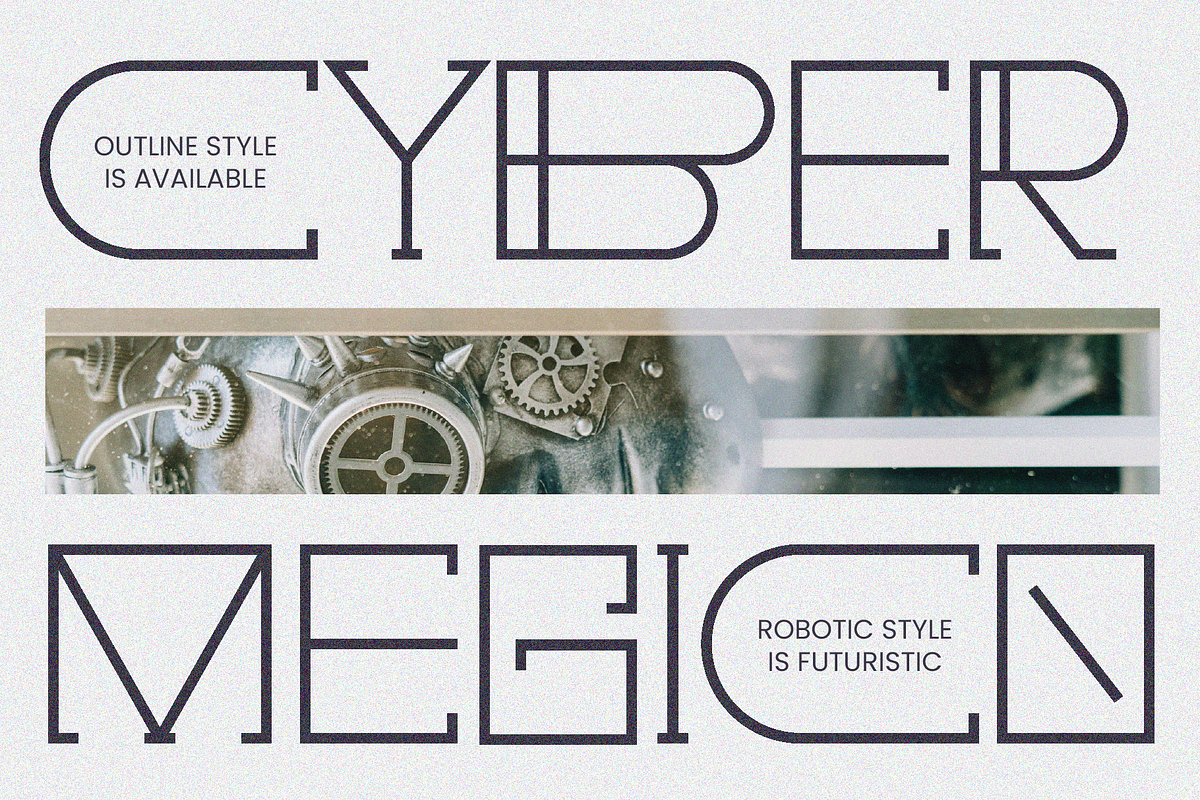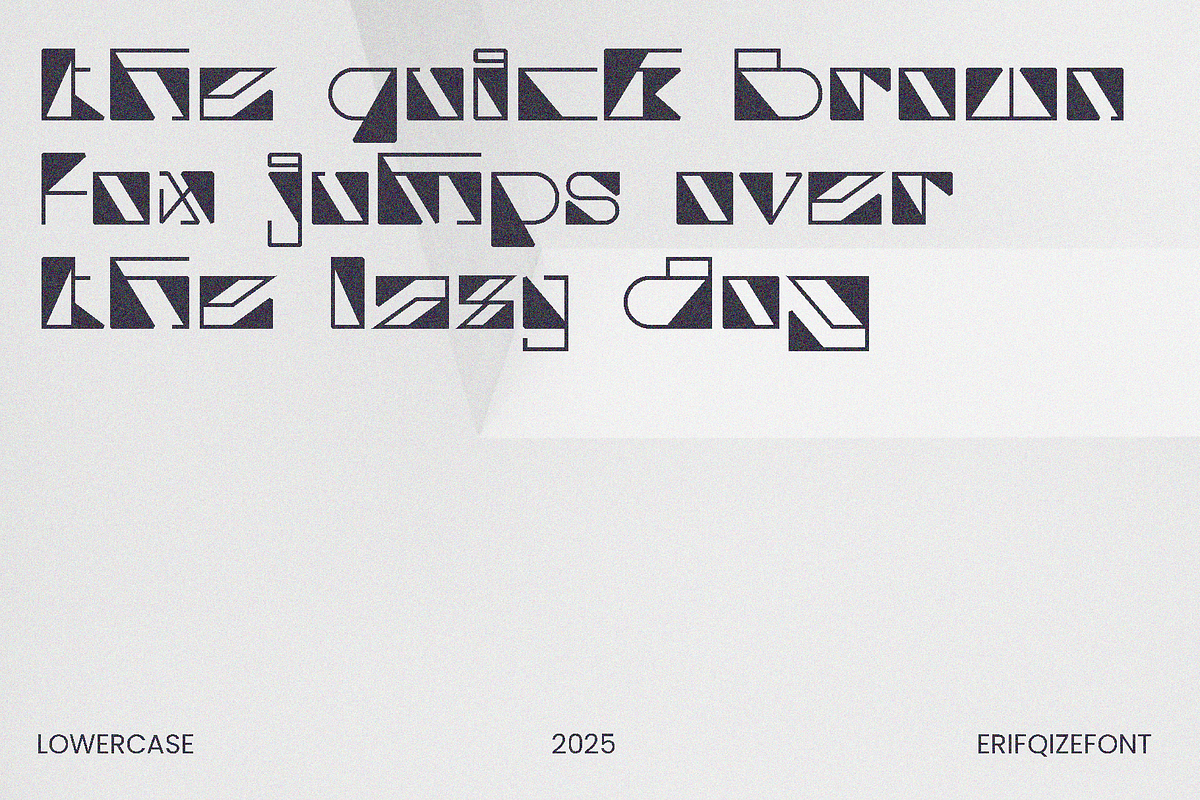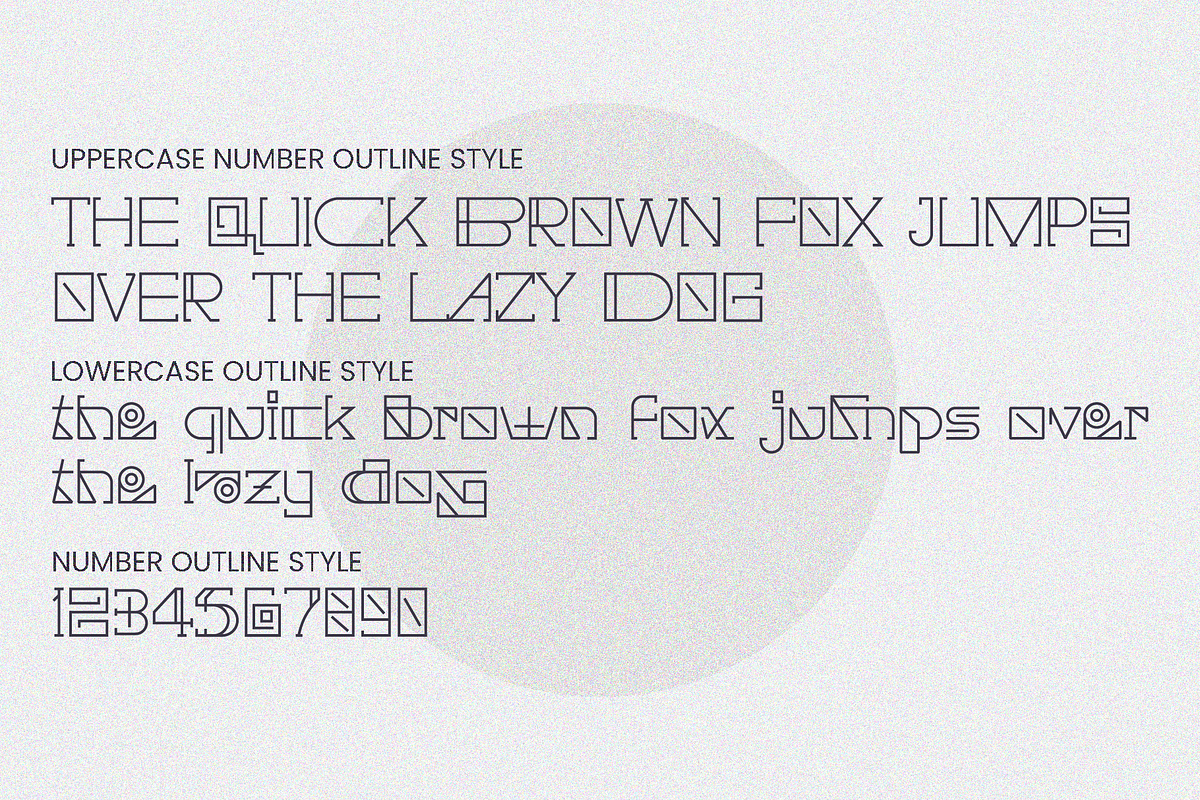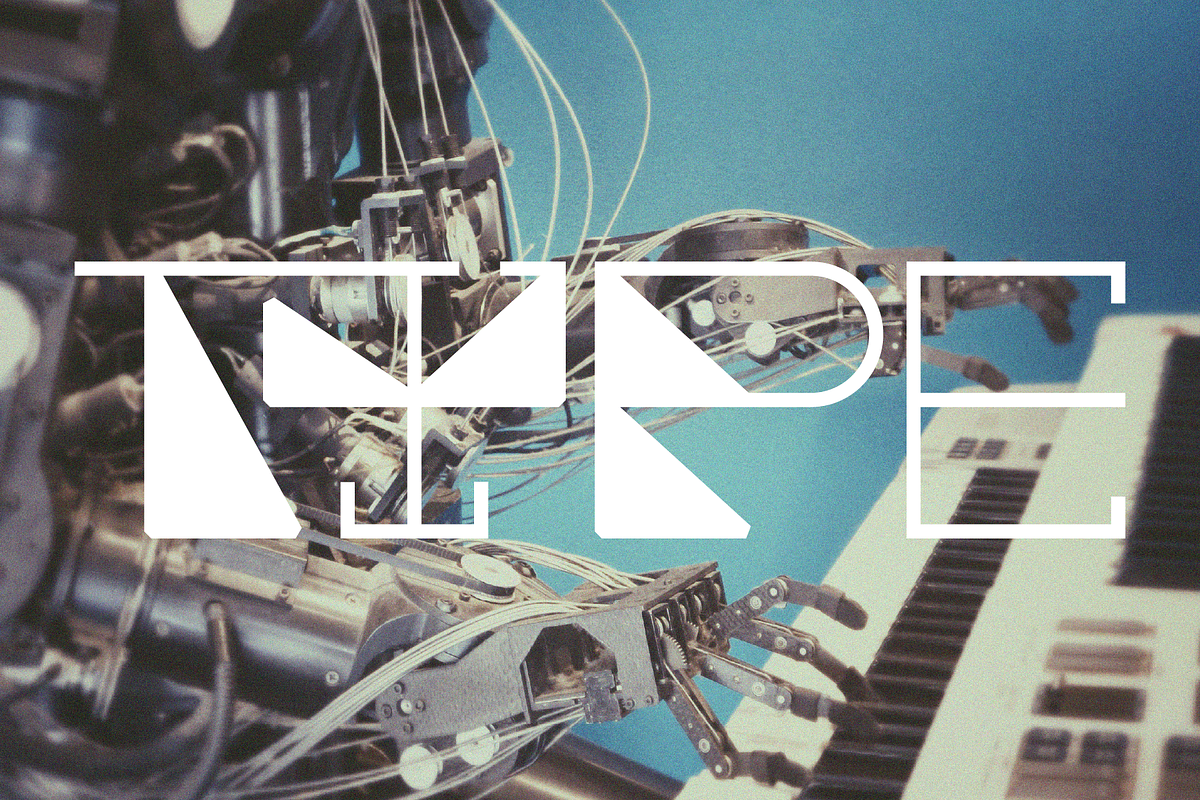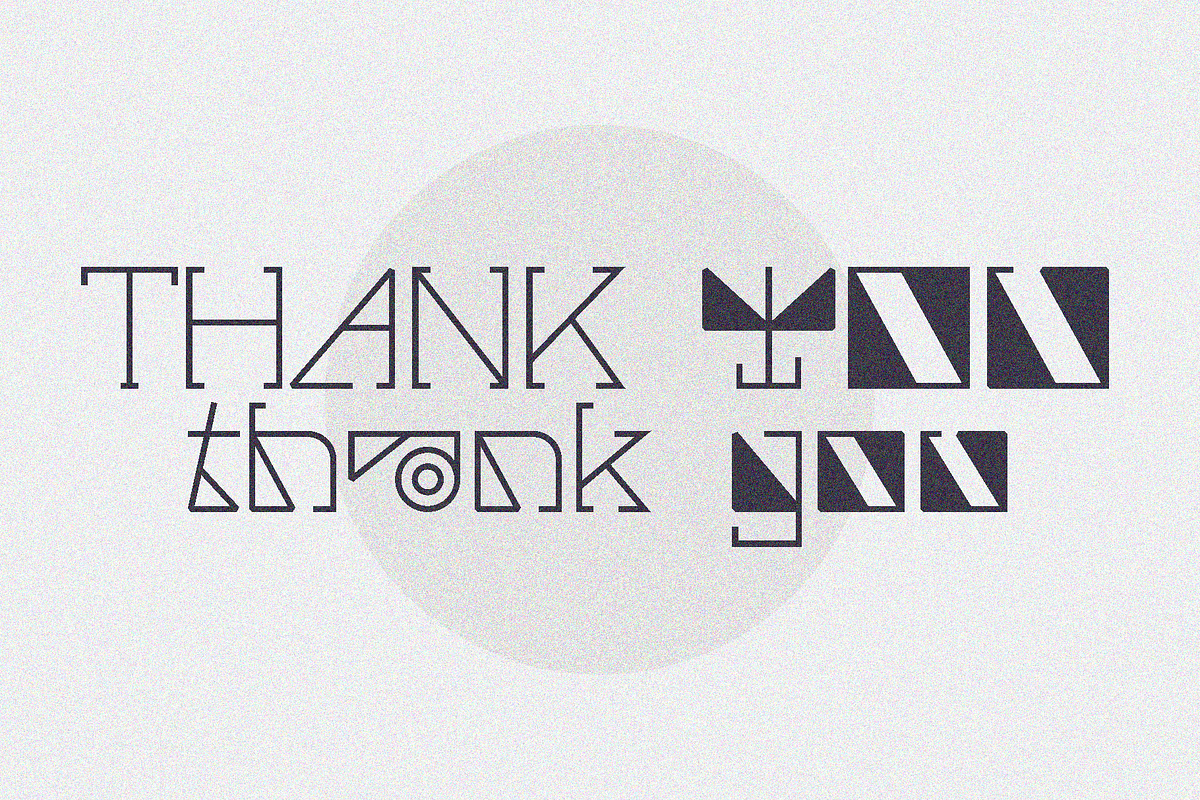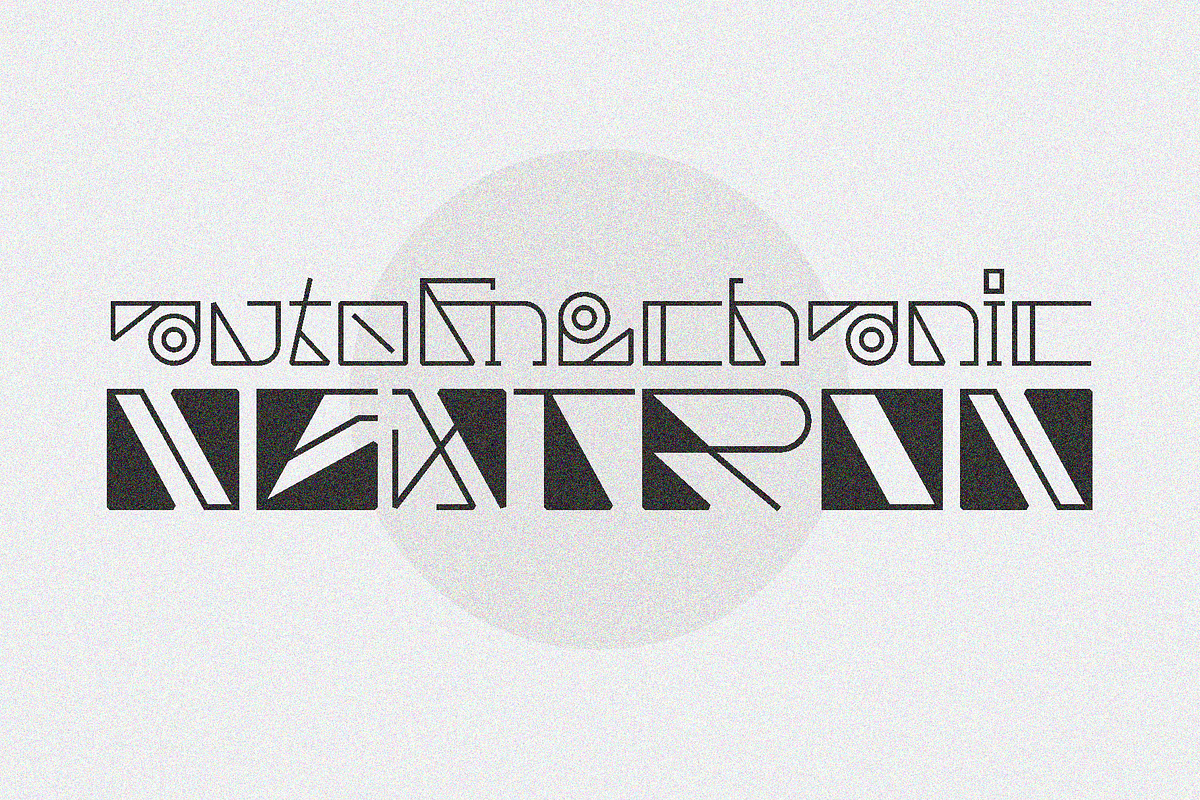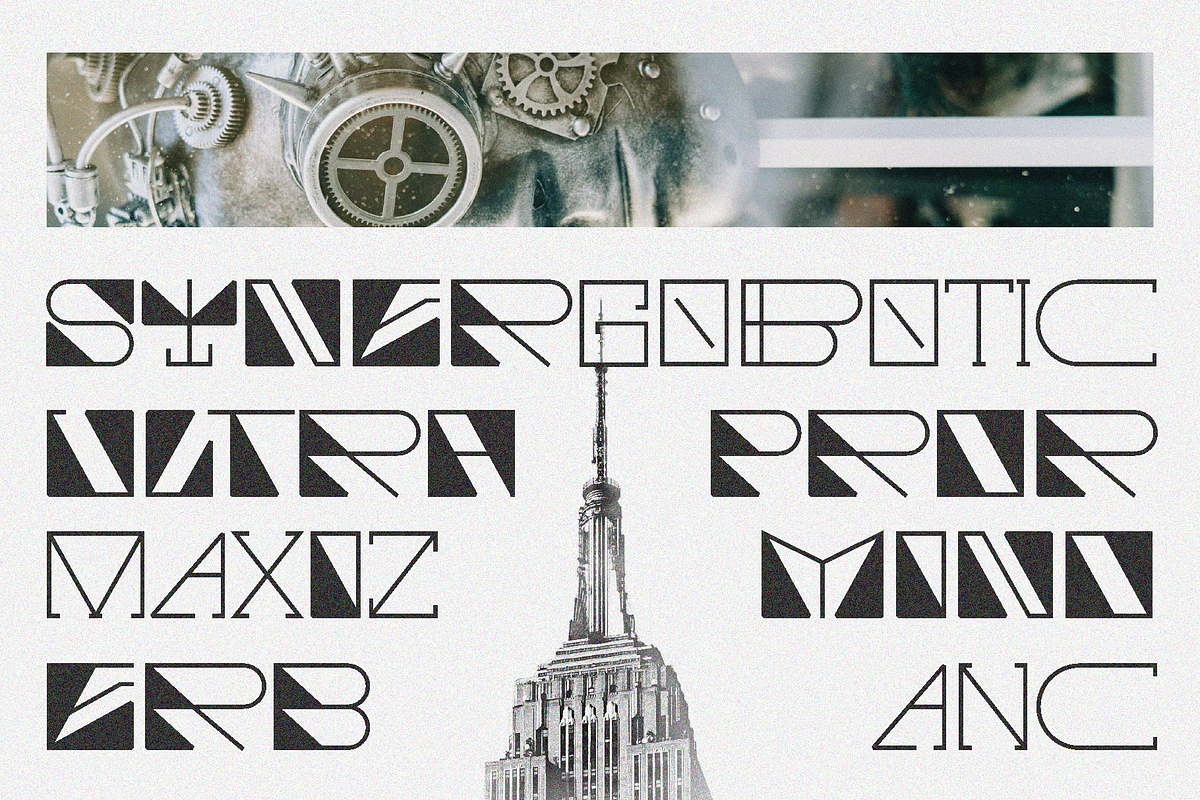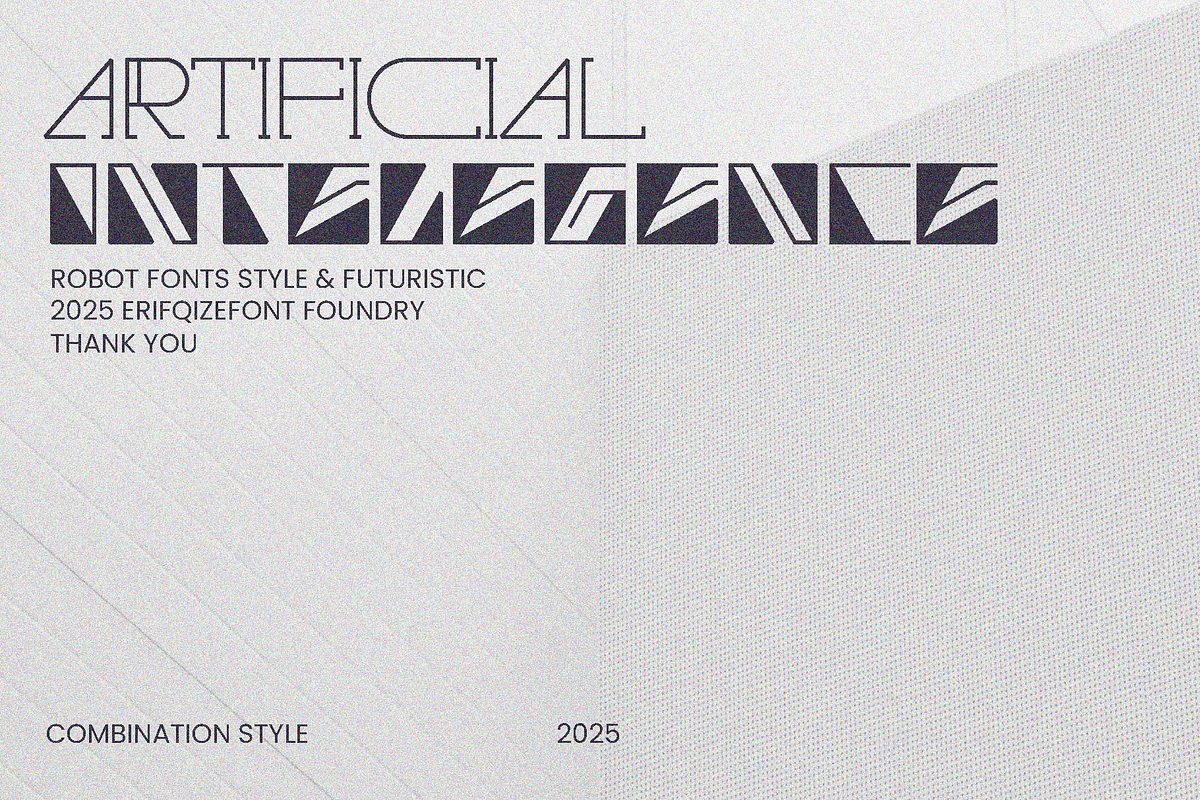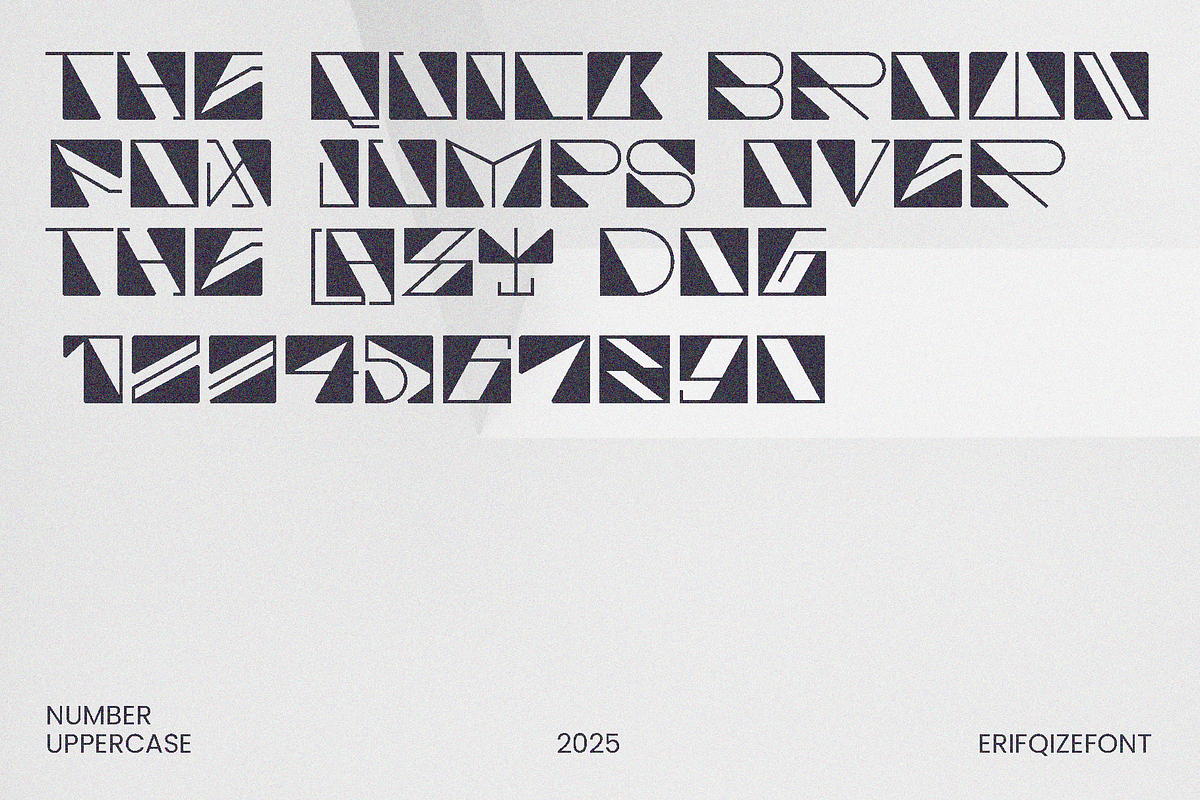
Cyber Megico Font
CYBER MEGICO – Futuristic Robotic Font
Step into the future with CYBER MEGICO, a unique, modern, and bold robotic-themed font designed for cutting-edge creativity. This font comes in two styles: Regular and Outline, allowing you to mix and match for a more dynamic and eye-catching look.
With ligatures and alternate characters, CYBER MEGICO offers exceptional versatility, making it perfect for tech branding, gaming, sci-fi projects, futuristic posters, and digital designs that demand a sleek, modern touch.
Additionally, this font supports multiple languages (multilingual support), ensuring your designs can reach a global audience.
Make CYBER MEGICO your go-to choice for futuristic, innovative, and high-tech designs!